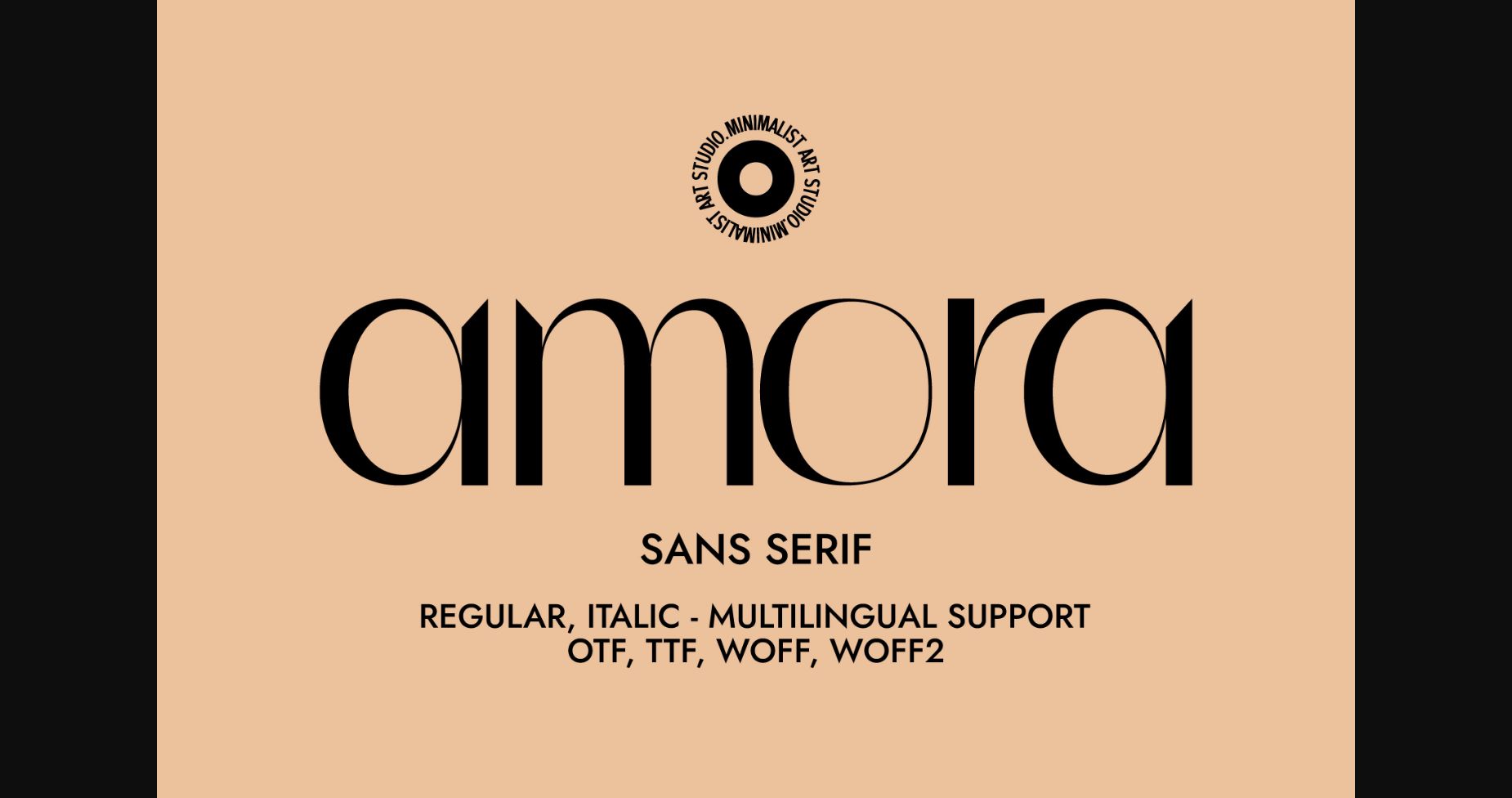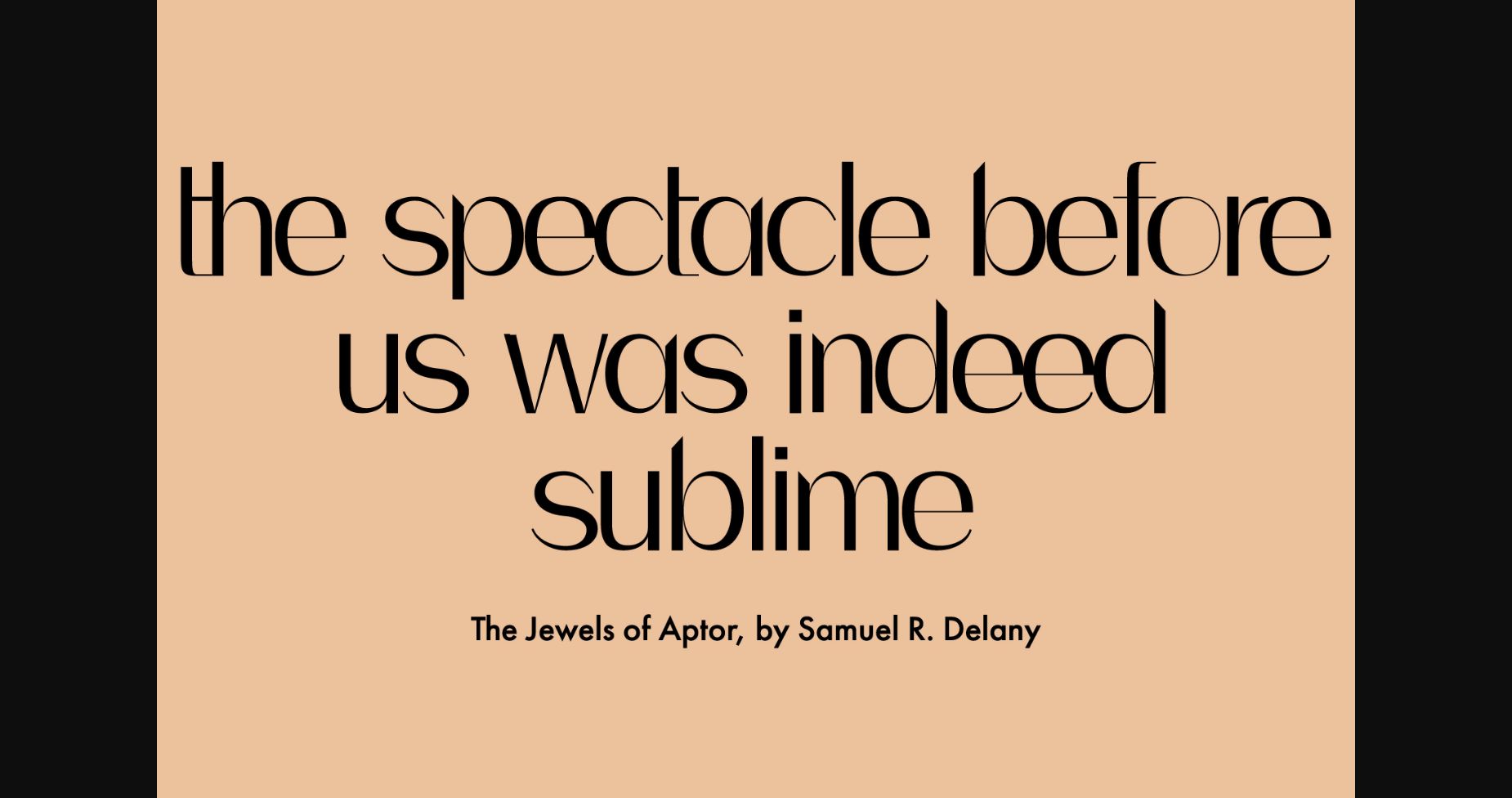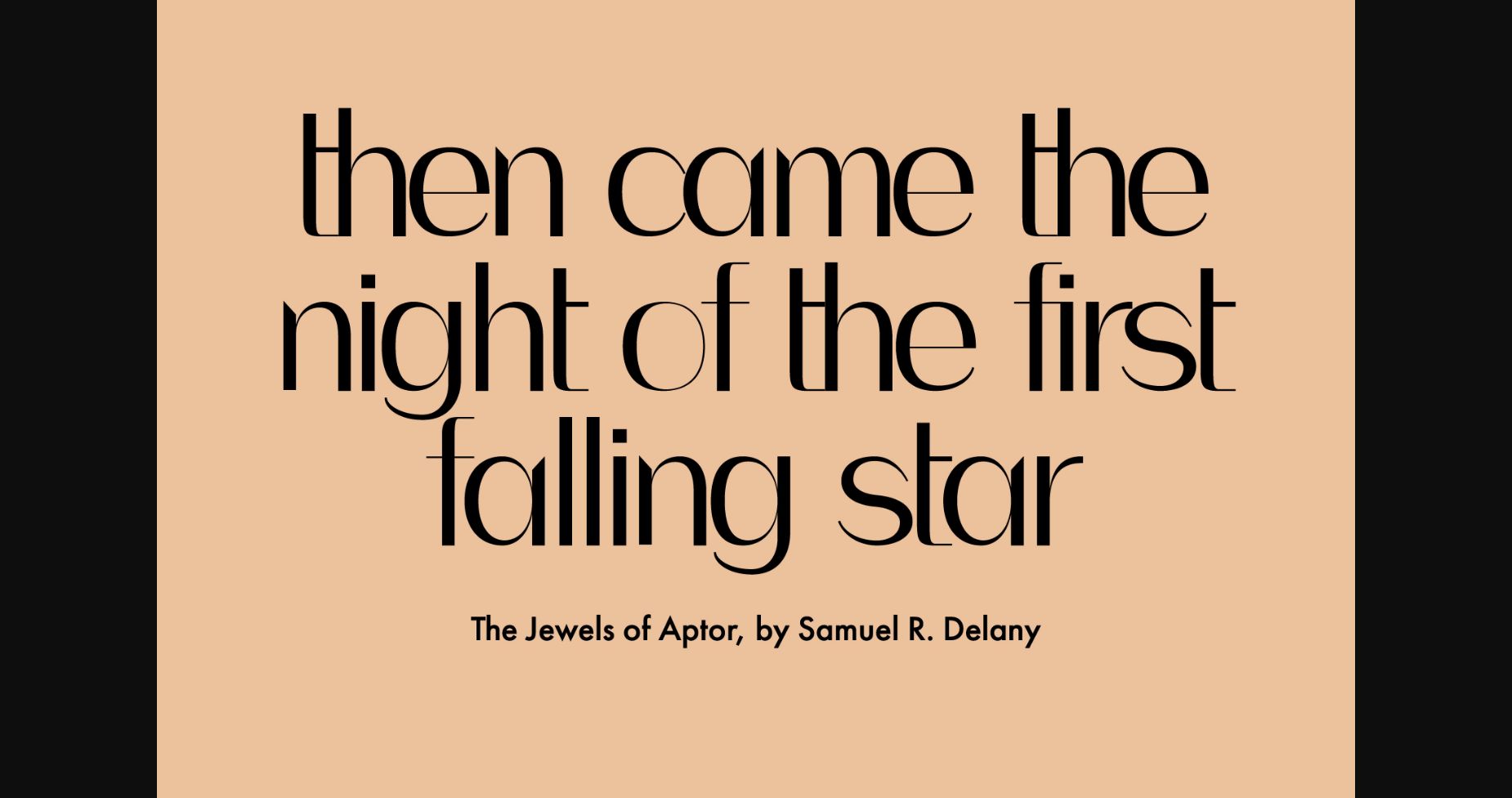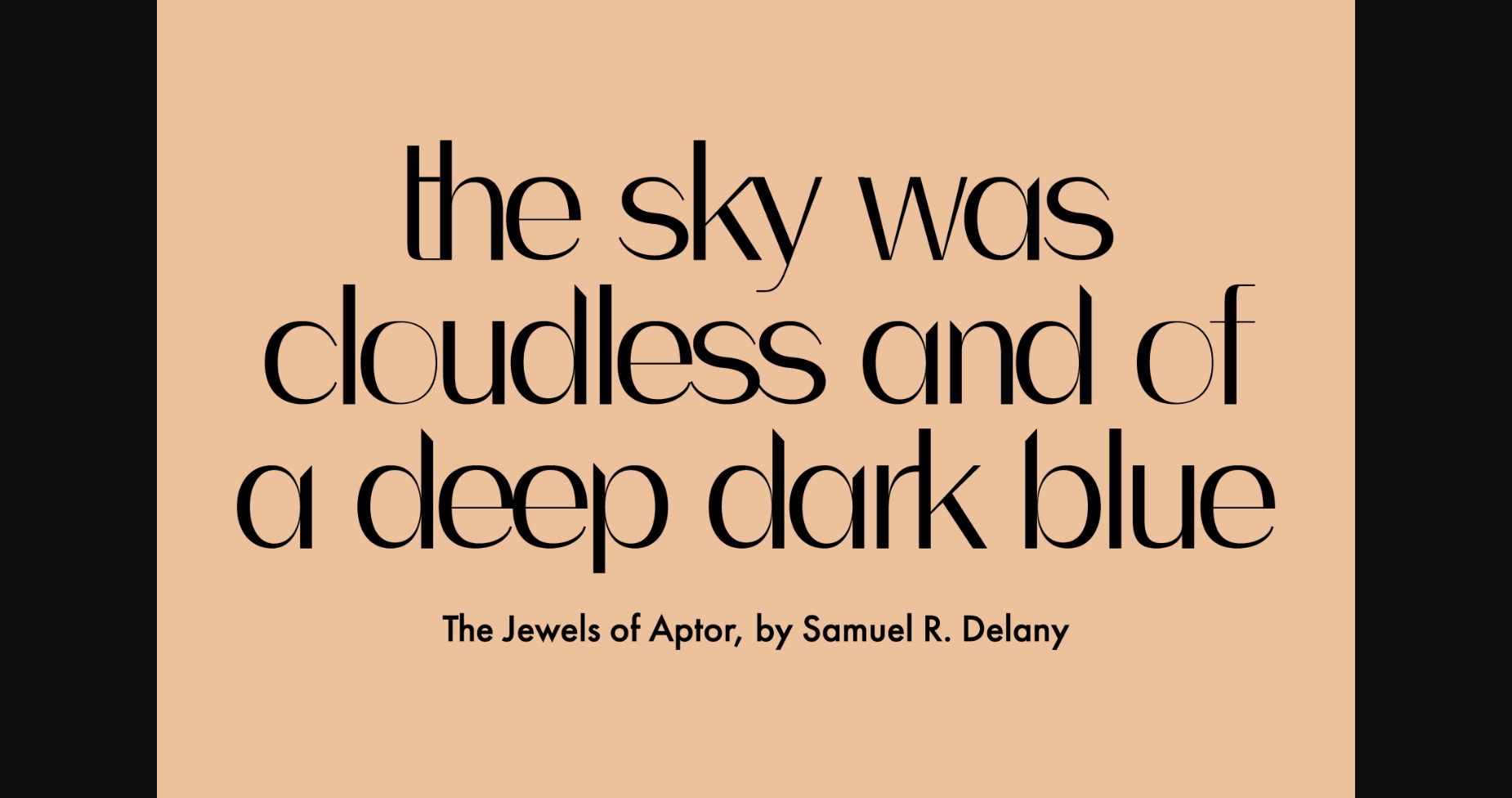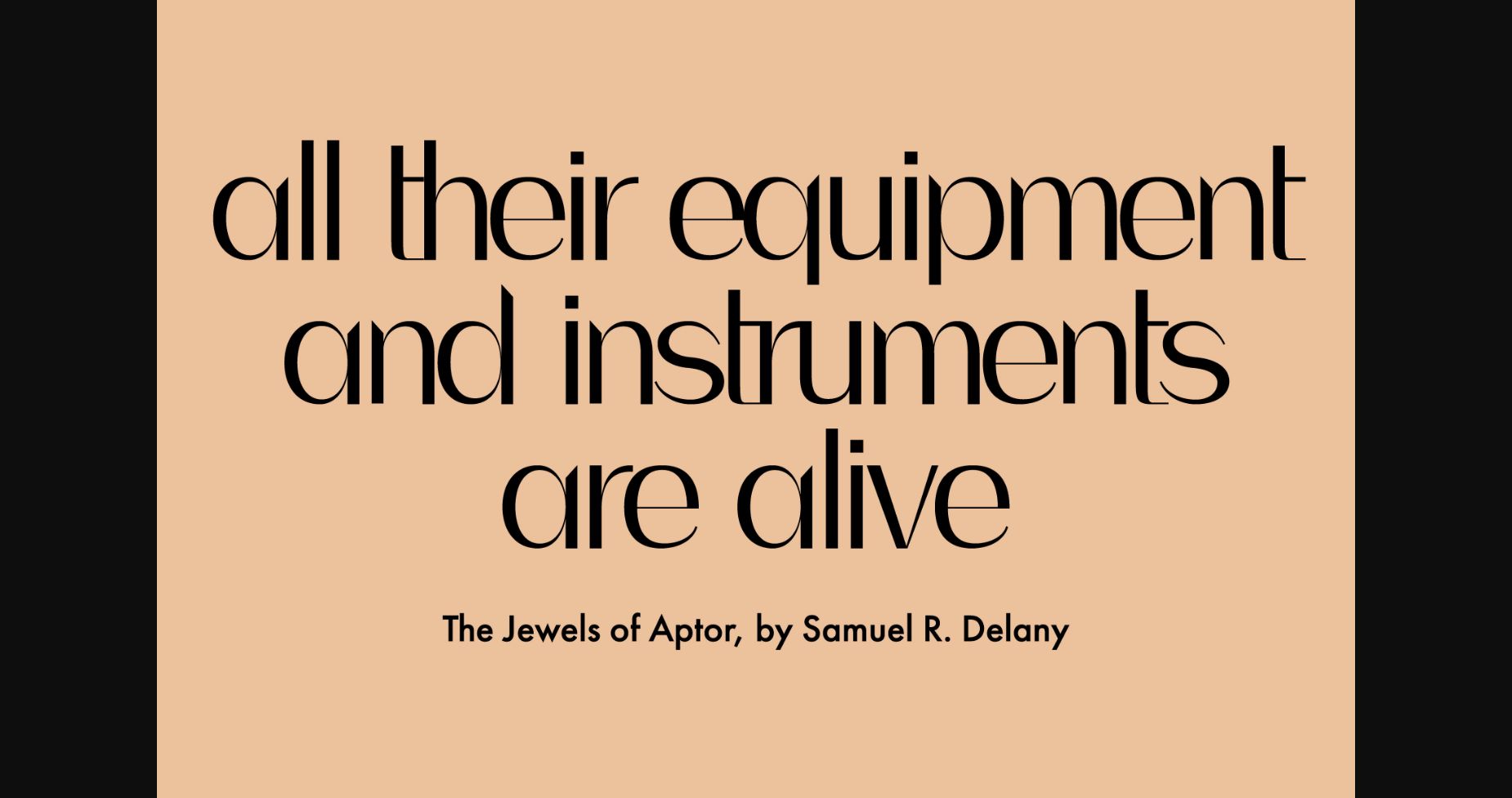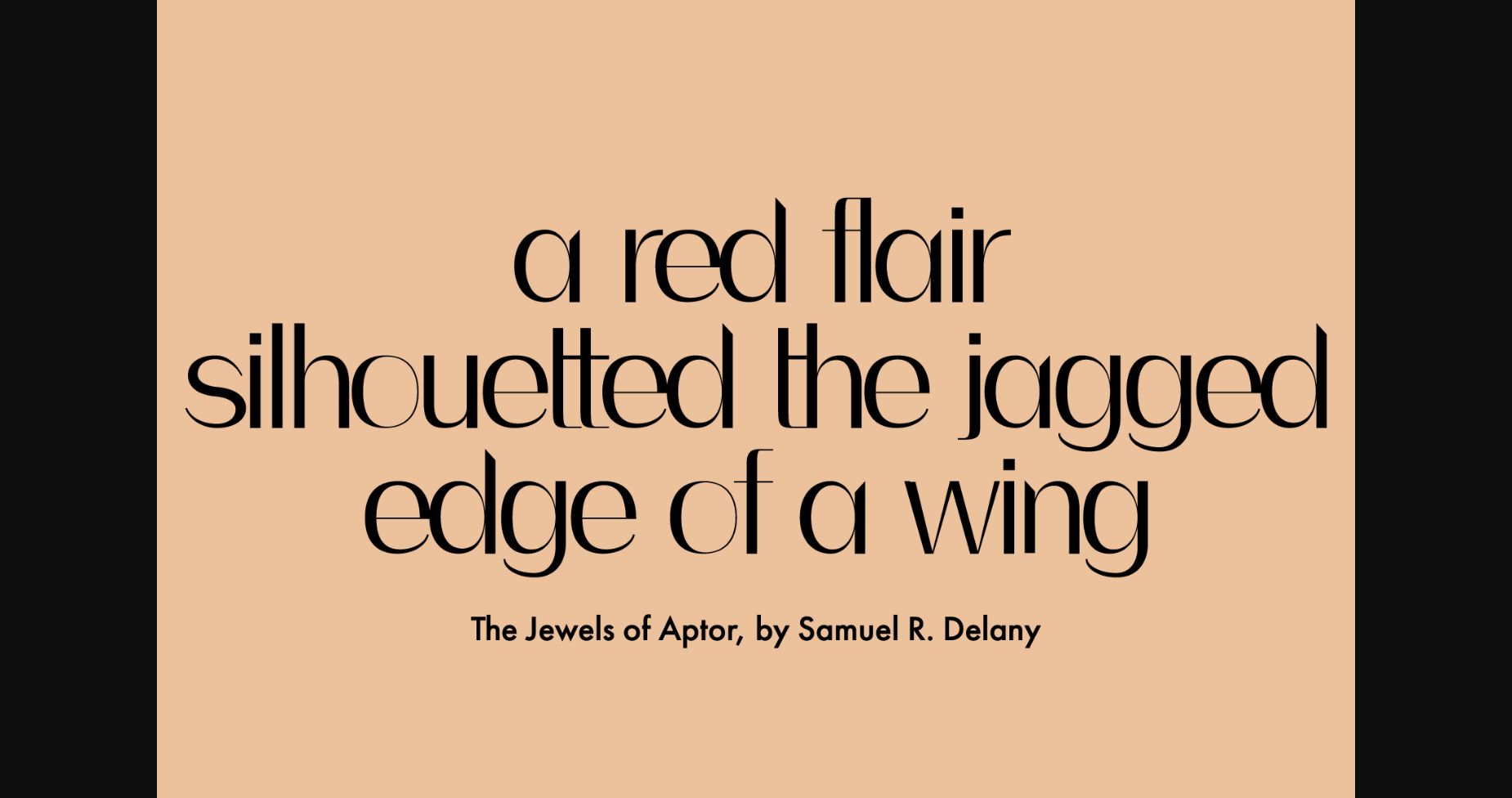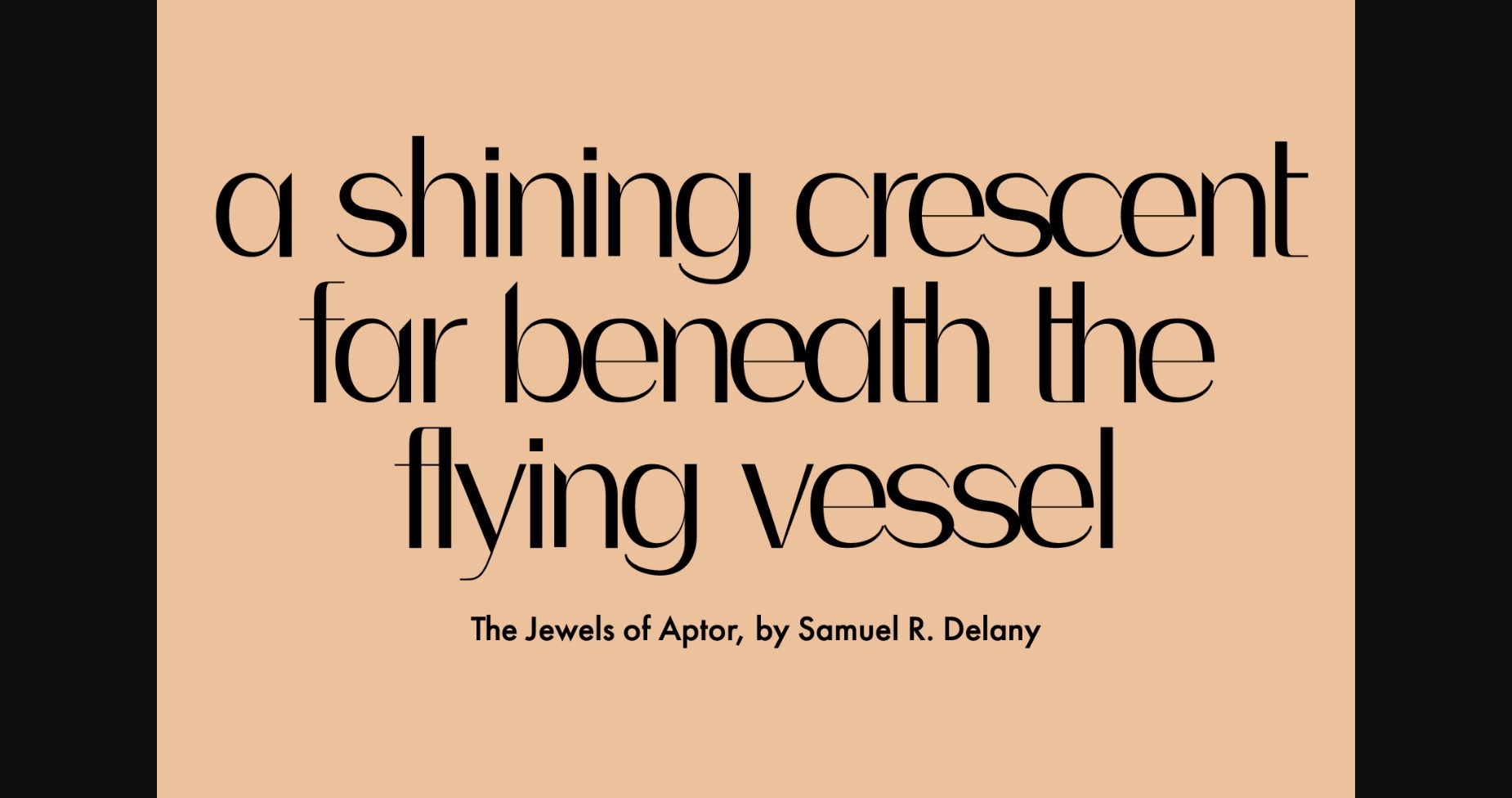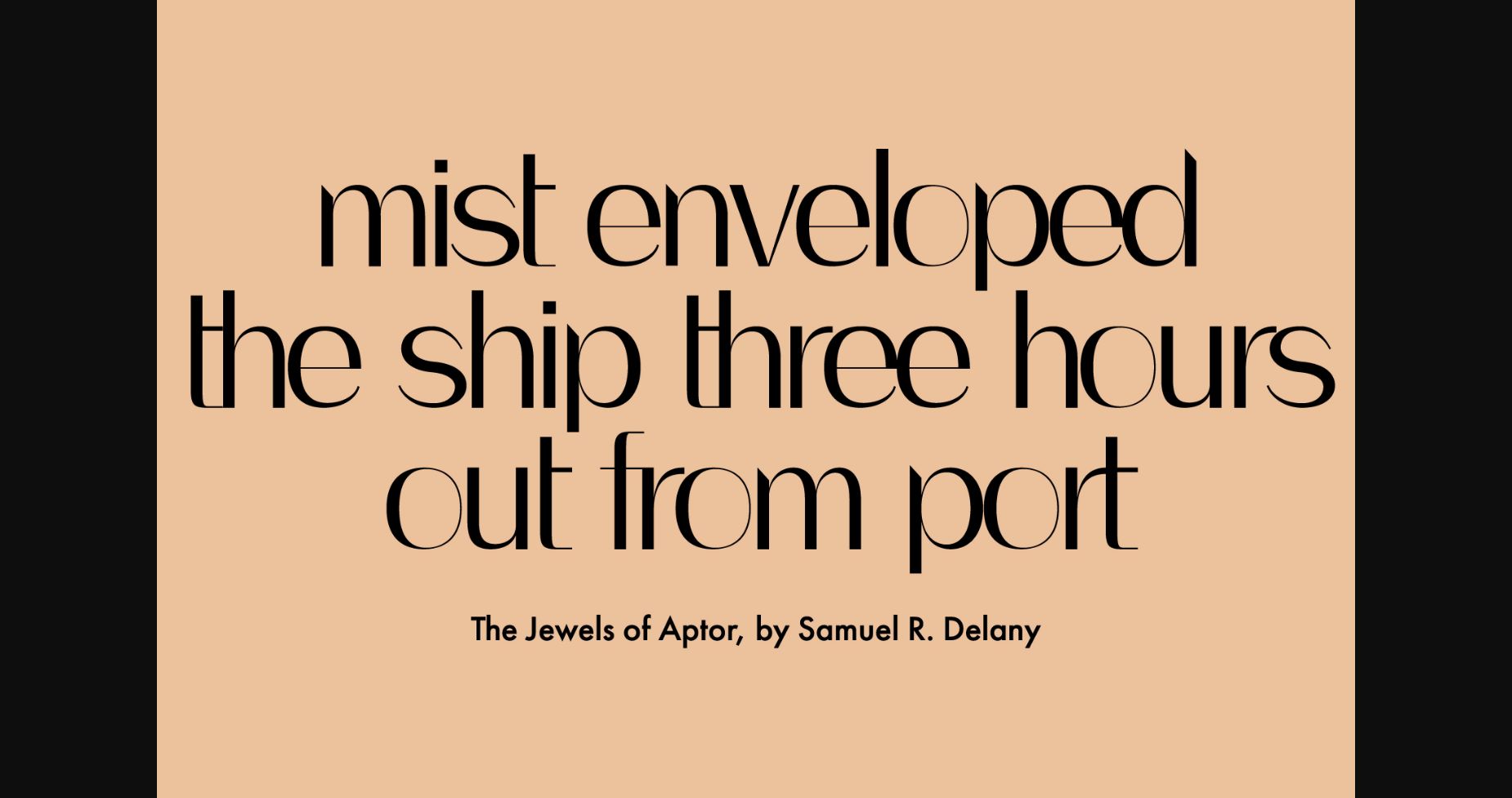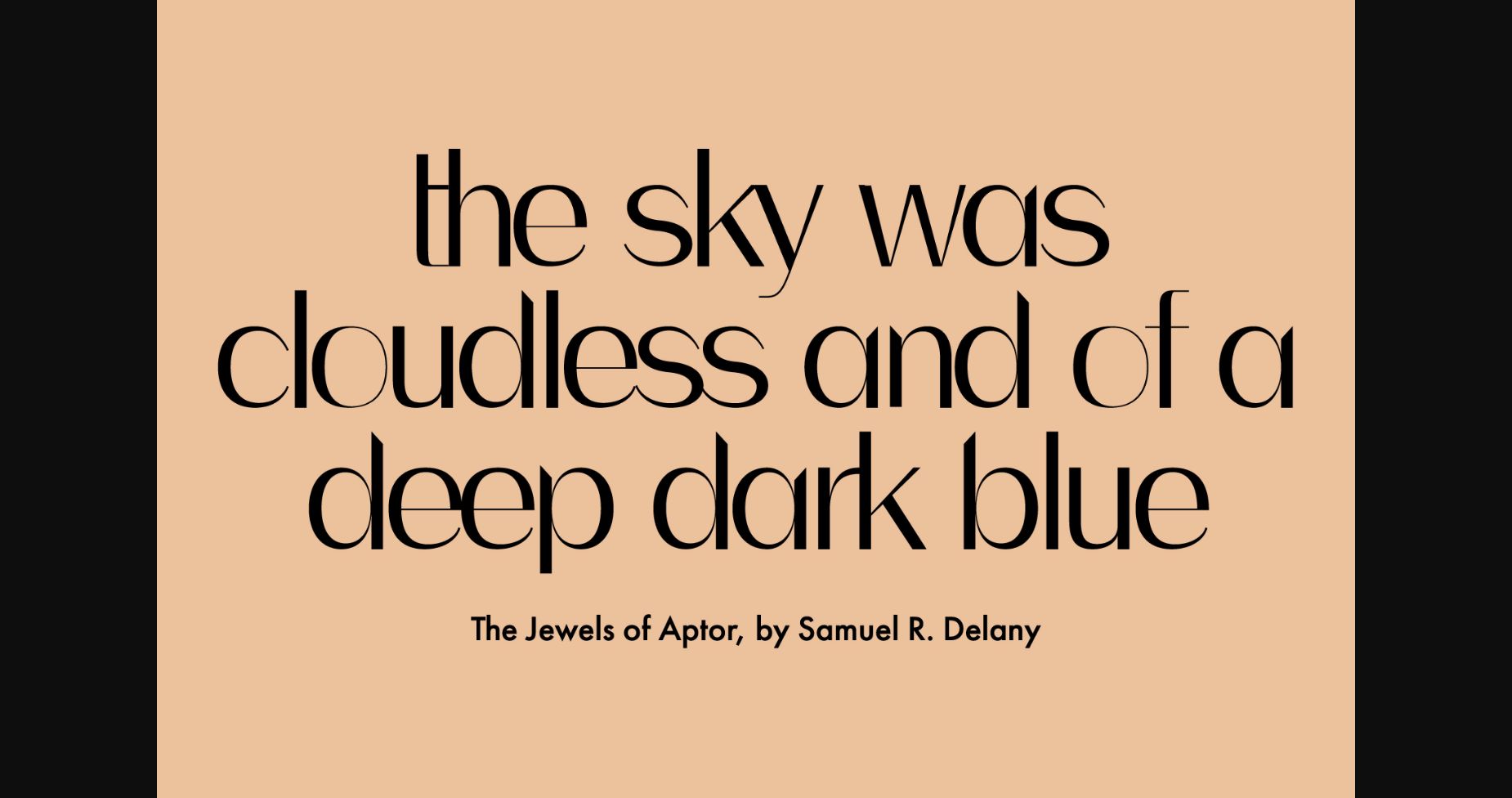
Amora Font
About Amora Font
Introducing Amora – the embodiment of simplicity and elegance in the world of typography. This stunning sans-serif typeface is the perfect choice for anyone seeking a minimalist and sophisticated look in their designs.
Crafted with precision and care, Amora boasts a clean and modern design that is both eye-catching and easy on the eyes. Its sleek lines and graceful curves lend a sense of refinement to any project, from logos to websites to print materials.
With its minimalist yet striking appearance, Amora is the ideal choice for businesses and individuals looking to make a bold statement with their branding. Its timeless design ensures that it will remain a classic choice for years to come.
Whether you’re designing a sleek and modern website or creating elegant branding materials, Amora is the perfect typeface to take your project to the next level. Try it today and see the magic of minimalist design come to life.